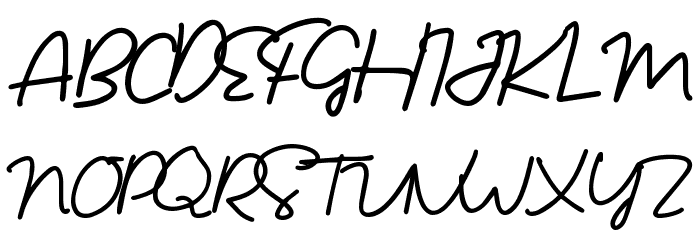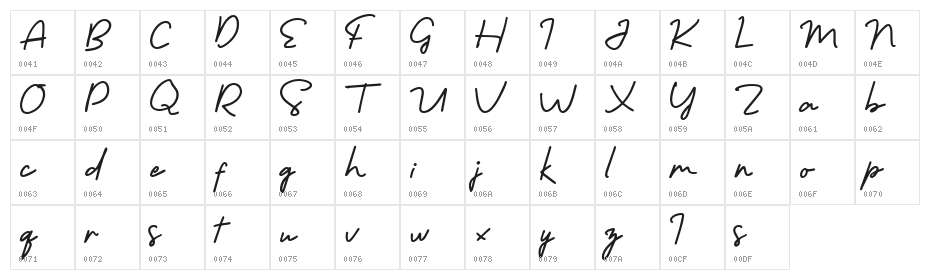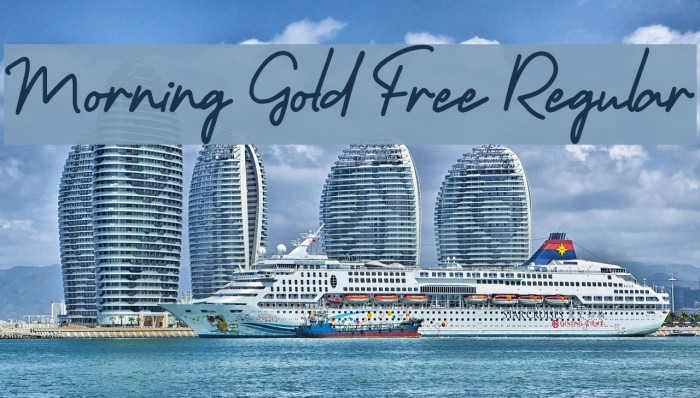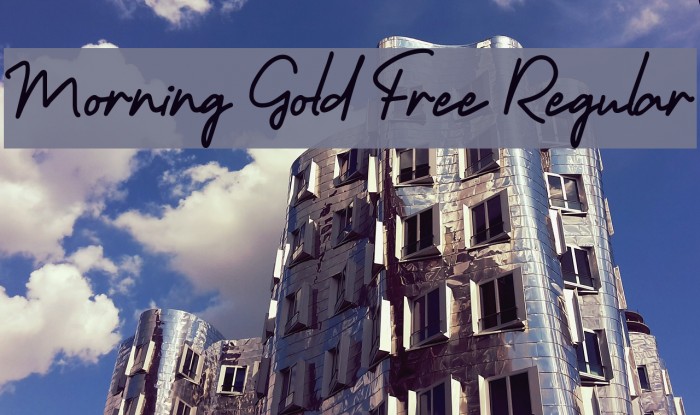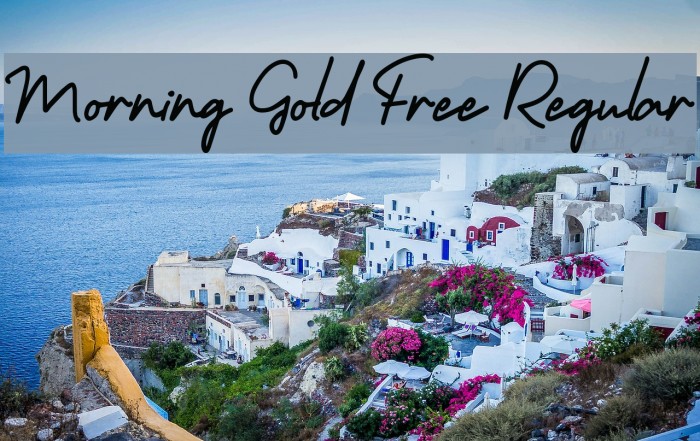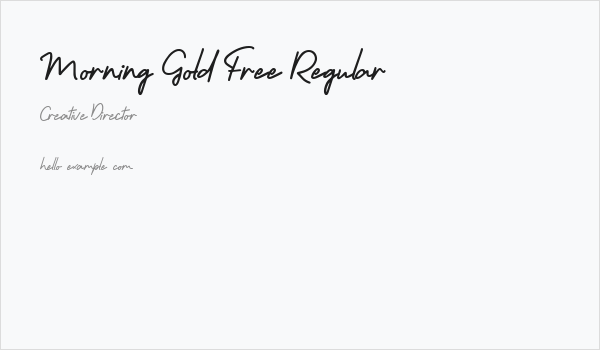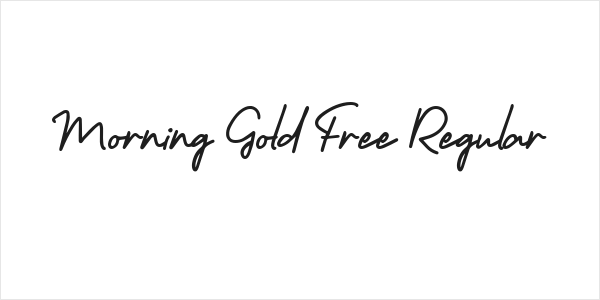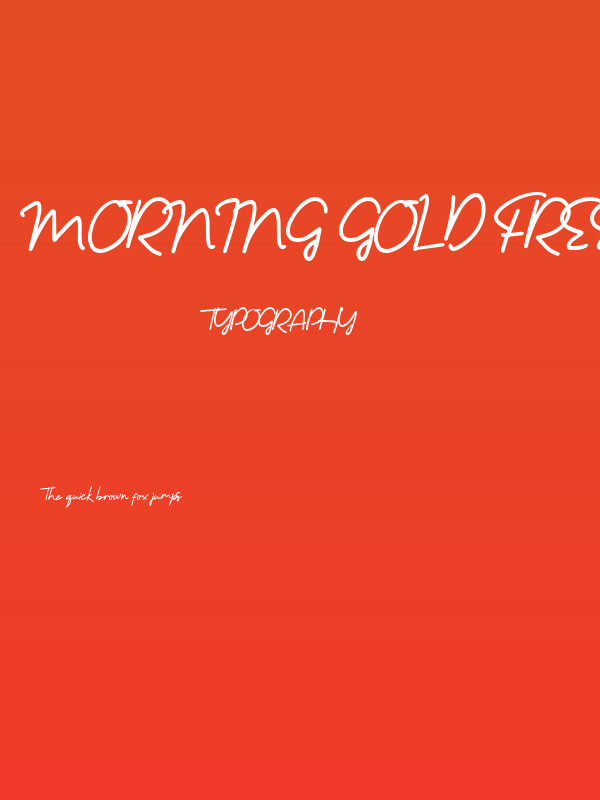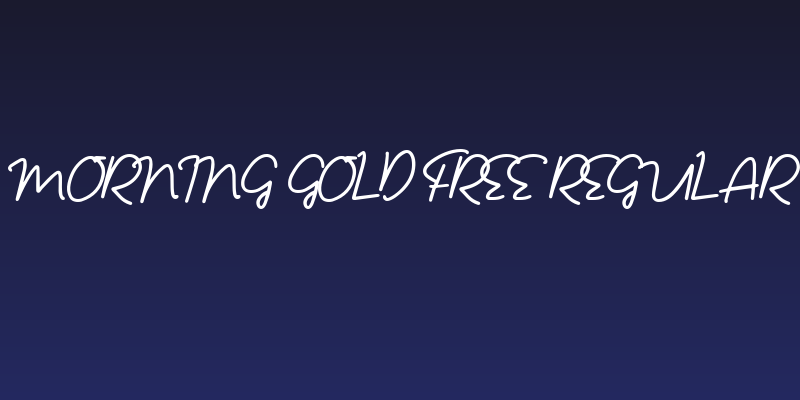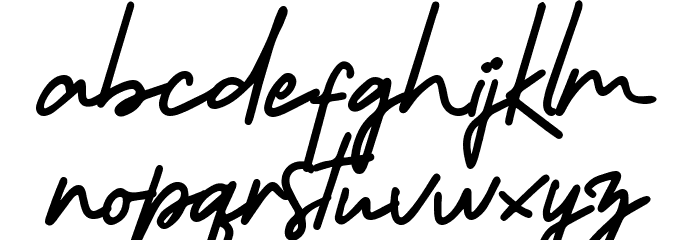
Morning Gold Free Regular Font
This font features a dynamic and fluid handwritten style, characterized by its smooth, flowing lines and natural, cursive appearance. The uppercase and lowercase letters are crafted with a consistent stroke width, giving it a harmonious and balanced look. The letters connect seamlessly, mimicking the natural motion of handwriting, which adds a personal and informal touch. The font maintains legibility while offering a unique and artistic flair, making it suitable for creative projects that require a personal touch.
Use CaseLogos, Invitations, Personal branding
Proposed ProjectsIdeal for greeting cards, invitations, personal branding, and artistic projects that require a handwritten touch.